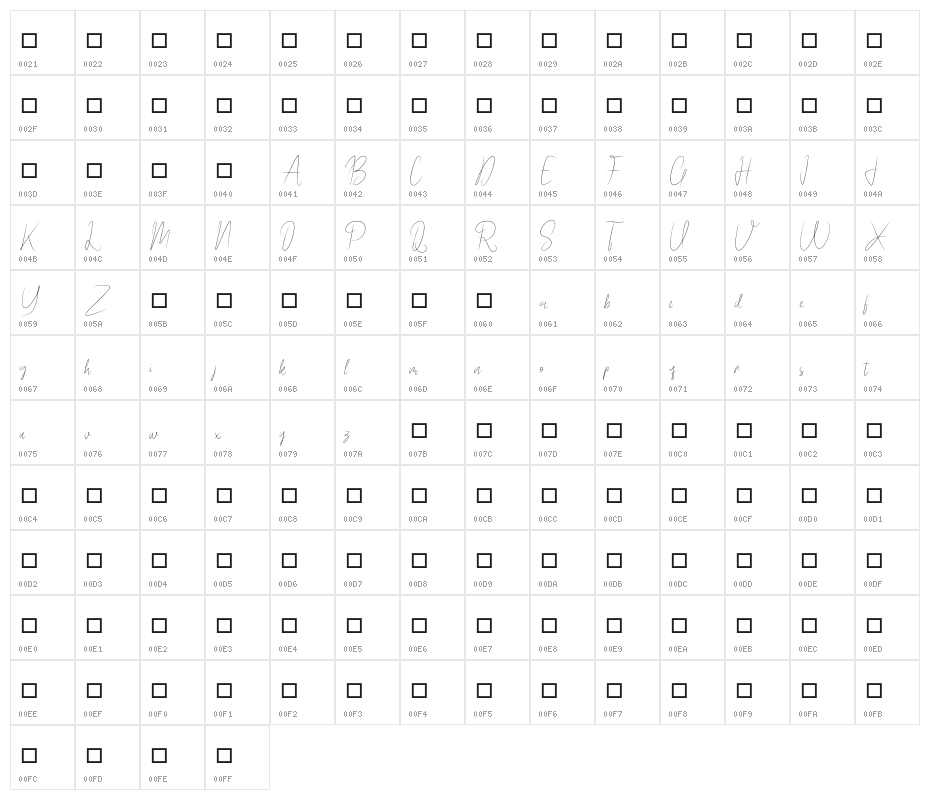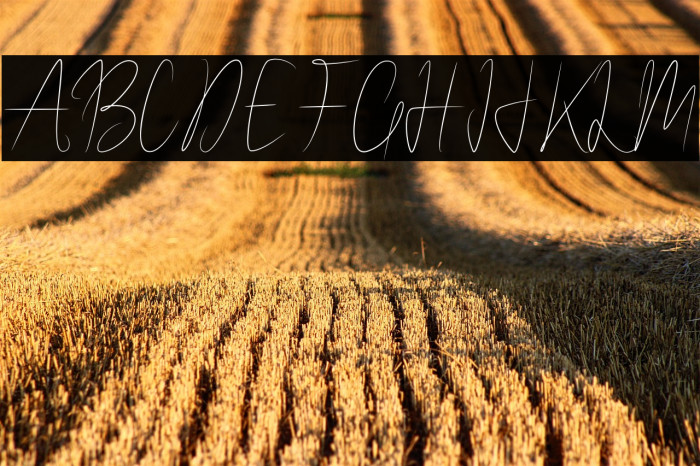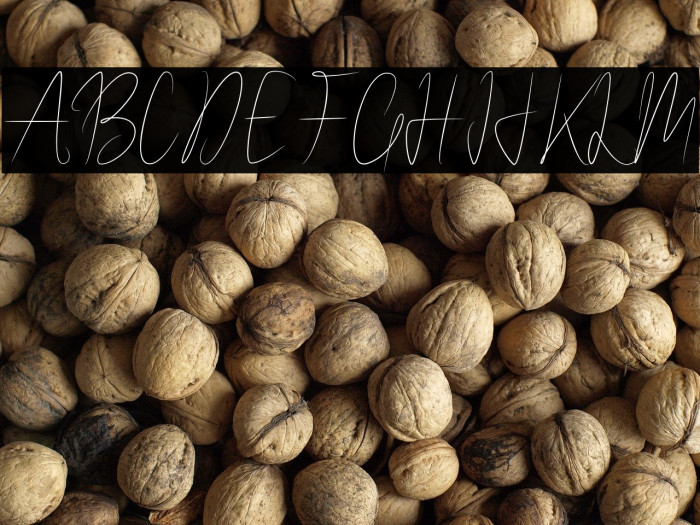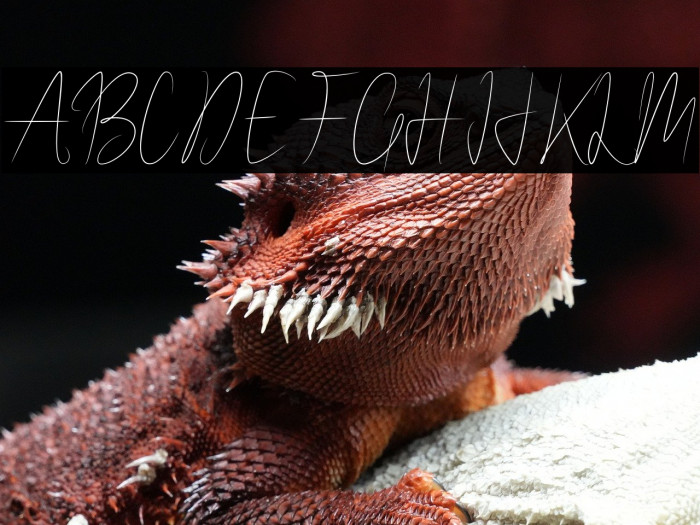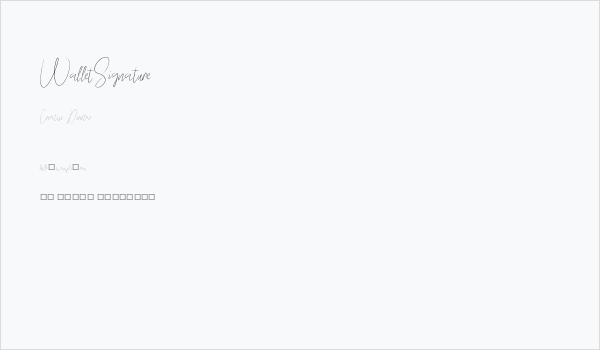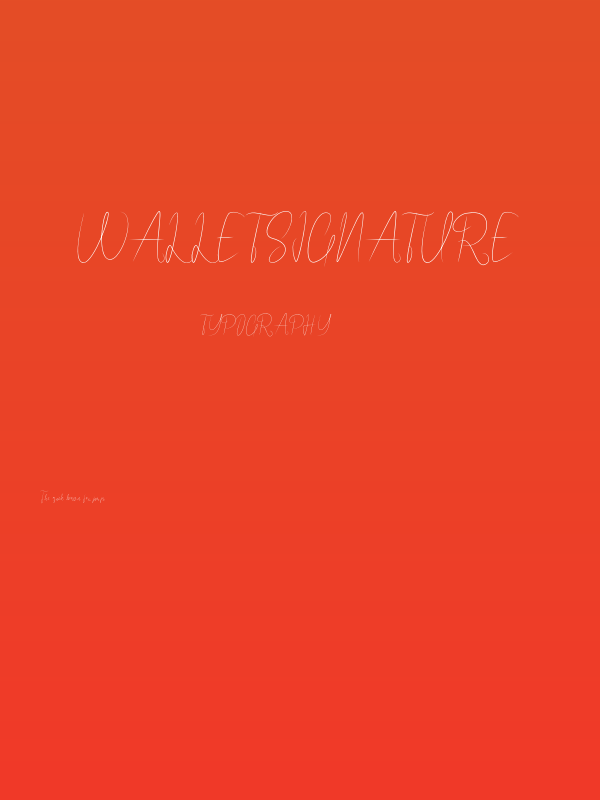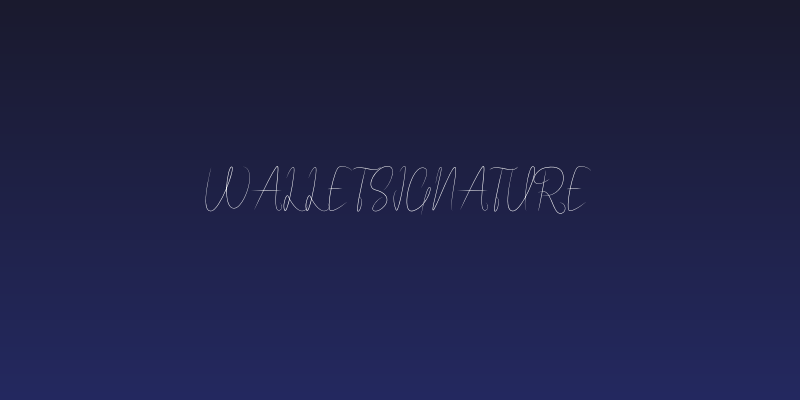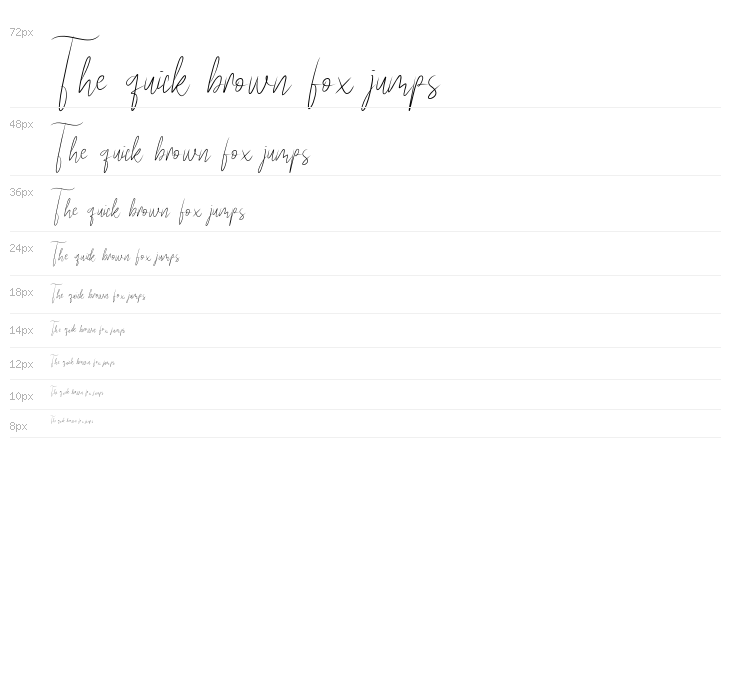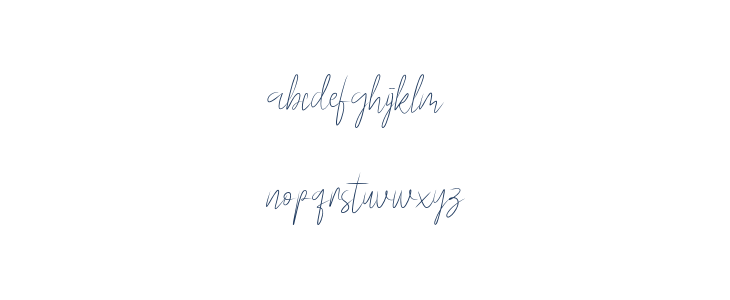
WalletSignature Font
WalletSignature Description
This elegant script font features a flowing, cursive style with delicate, thin strokes that give it a sophisticated and graceful appearance. The uppercase letters are tall and slightly slanted, while the lowercase letters maintain a consistent flow, enhancing the overall fluidity of the design. The font's airy and open structure makes it suitable for creating a sense of elegance and refinement. The characters are well-spaced, allowing for excellent readability despite the intricate design. This font does not include numerical characters or special symbols, focusing solely on the alphabet.
| Overall Style | Elegant |
| Use Case | Invitations, Branding, Stationery |
| Proposed Projects | Ideal for wedding invitations, elegant branding, and personal stationery. |